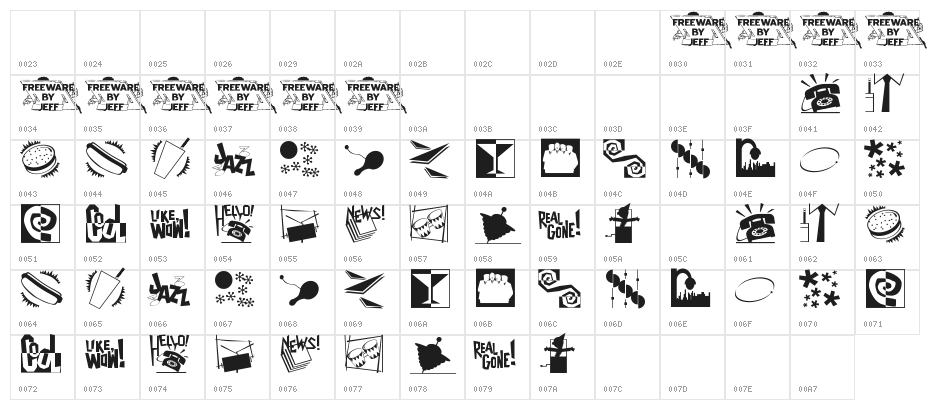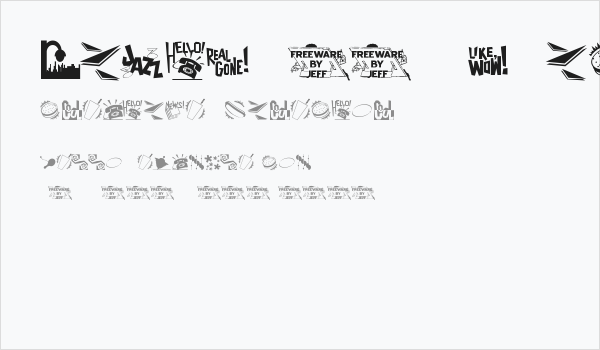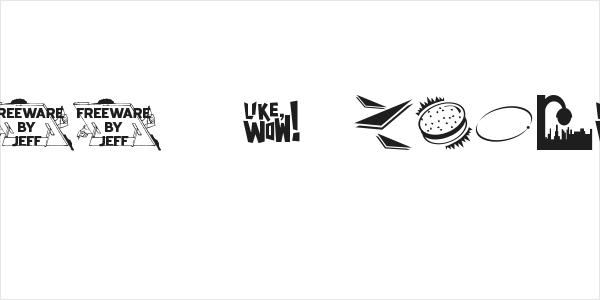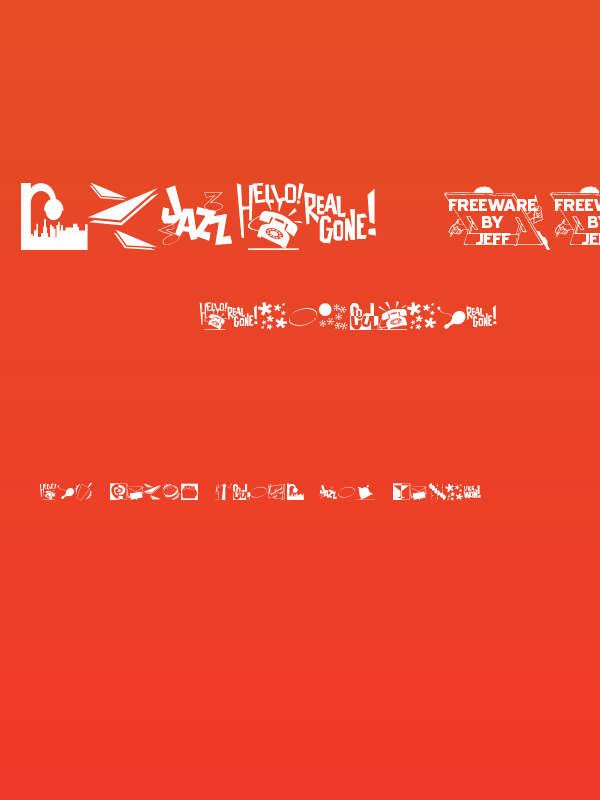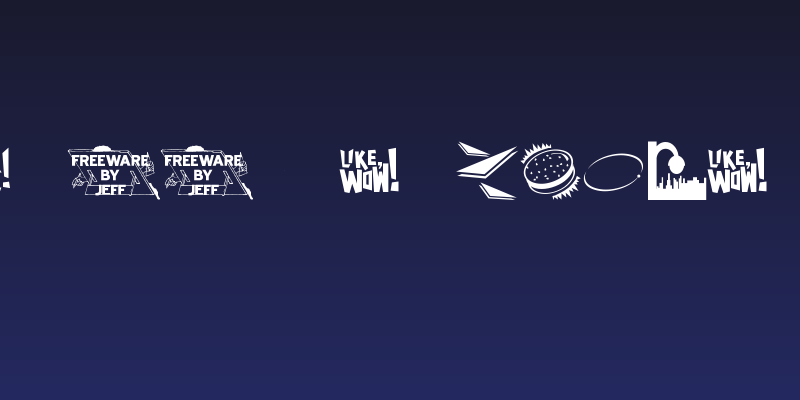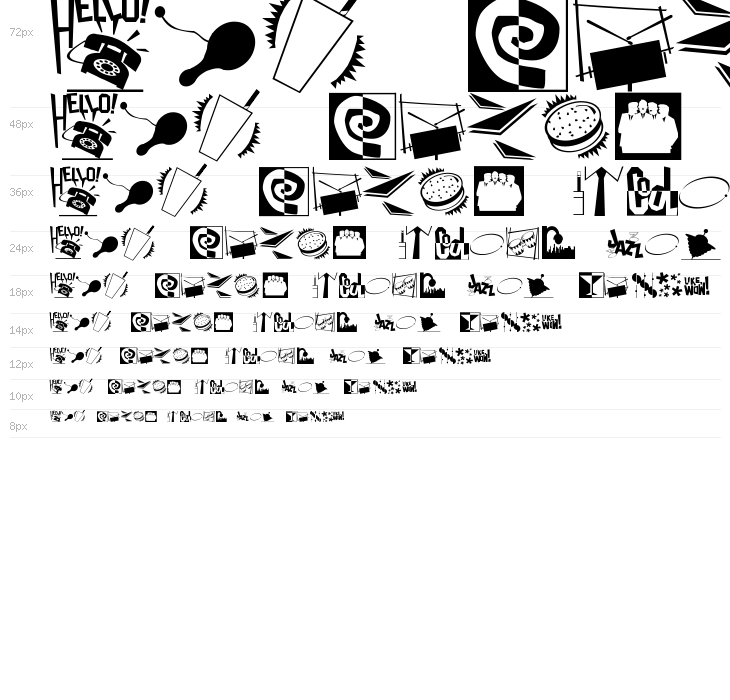
Nifty 50's Icons 2 JL Font
Nifty 50's Icons 2 JL Description
This set of icons captures the vibrant and playful essence of the 1950s, featuring a variety of retro-themed graphics. The icons include classic symbols such as vintage telephones, records, and stylized text elements like 'Jazz' and 'News!'. Each icon is bold and distinct, with a mix of geometric shapes and illustrative elements that evoke a sense of nostalgia. The style is reminiscent of mid-century design, characterized by its bold lines and dynamic compositions. The icons are perfect for adding a touch of retro flair to any project, with their eye-catching and whimsical designs.
| Use Case | Logos, Decorative elements, Themed events |
| Proposed Projects | Ideal for vintage-themed posters, retro branding, party invitations, and nostalgic web design. |